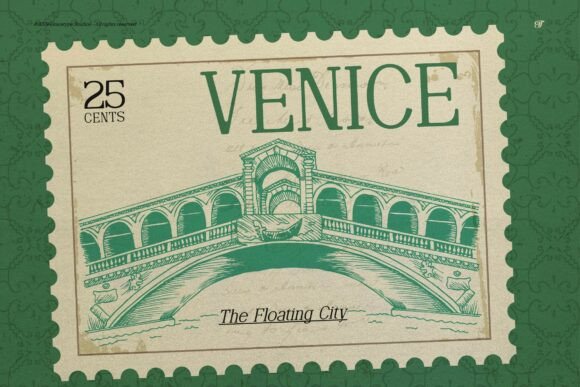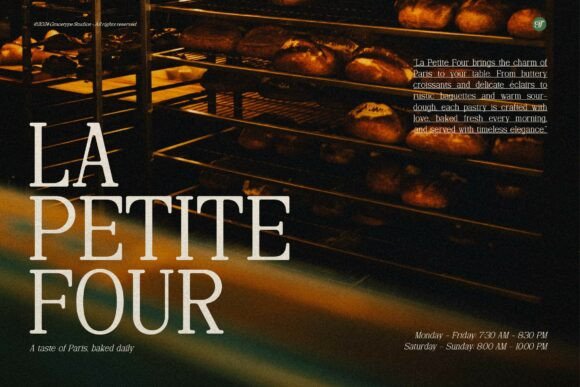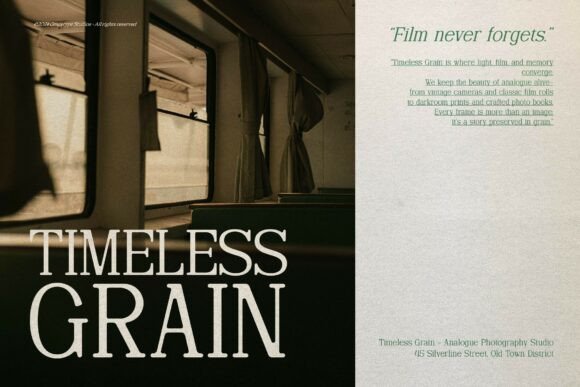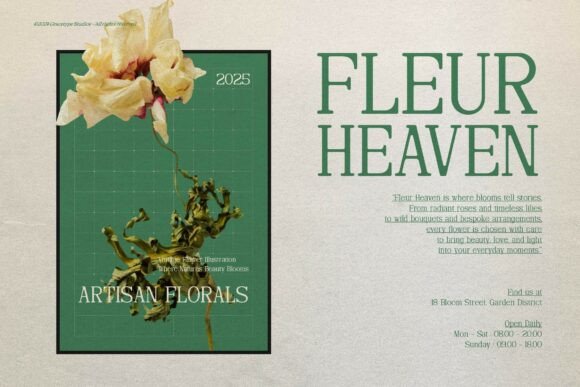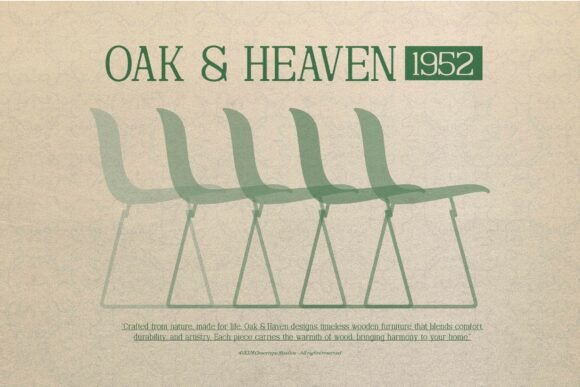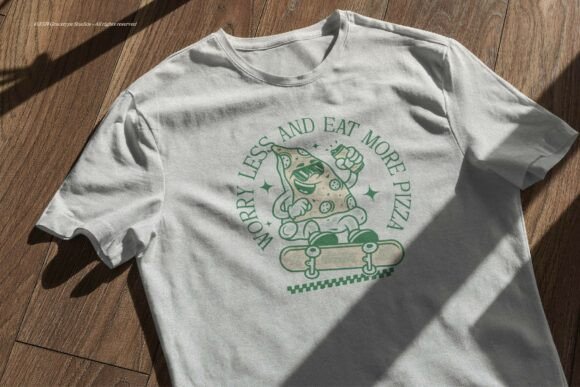
Introducing Defilao Vertes: The Ultimate Vintage Font for Your Creative Projects
Are you a designer or crafter looking for a font that adds a touch of vintage charm to your projects? Look no further than Defilao Vertes, a beautifully crafted vintage font that’s perfect for a wide range of creative endeavors. In this article, we’ll explore the unique characteristics of Defilao Vertes and how it can elevate your designs, from logos and branding projects to homeware designs, product packaging, and beyond.
The Unique Charm of Defilao Vertes
Defilao Vertes is a carefully crafted vintage font that exudes a sense of nostalgia and sophistication. Its unique letterforms and classic typography make it an excellent choice for designers and crafters who want to add a touch of elegance and refinement to their projects. Whether you’re working on a logo, a poster, or a product label, Defilao Vertes is sure to make your design stand out.
Versatility at Its Best: Use Defilao Vertes for a Wide Range of Projects
One of the best things about Defilao Vertes is its incredible versatility. This font is suitable for a wide range of projects, including:
- Logos and branding projects: Create a lasting impression with a custom logo that showcases your brand’s personality and style.
- Homeware designs: Add a touch of vintage charm to your home decor designs, from wall art to kitchenware.
- Product packaging: Make your products stand out on store shelves with eye-catching packaging that features Defilao Vertes.
- Mugs and ceramics: Create personalized gifts or unique home decor items with Defilao Vertes.
- Quotes and posters: Add a touch of elegance to your inspirational quotes and posters.
- Shopping bags and packaging: Elevate your brand’s packaging with a custom shopping bag that features Defilao Vertes.
- T-shirts and apparel: Create stylish and unique apparel with Defilao Vertes.
- Book covers and journals: Add a touch of sophistication to your book covers and journals.
- Name cards and invitation cards: Create beautiful and elegant name cards and invitation cards for special events.
- Greeting cards and labels: Add a personal touch to your greeting cards and labels with Defilao Vertes.
- Photography and watermark: Use Defilao Vertes as a watermark for your photos or add it to your photography designs.
Why Choose Defilao Vertes?
So, why should you choose Defilao Vertes for your next project? Here are just a few reasons:
- Unique and distinctive: Defilao Vertes is a one-of-a-kind font that will set your designs apart from the rest.
- Vintage charm: Add a touch of nostalgia and sophistication to your designs with Defilao Vertes.
- High-quality: Defilao Vertes is a high-quality font that’s perfect for both personal and commercial use.
Tips and Inspiration for Using Defilao Vertes
To get the most out of Defilao Vertes, here are a few tips and inspiration ideas:
- Experiment with different colors: Defilao Vertes looks great in a variety of colors, from bold and bright to soft and pastel.
- Mix and match: Combine Defilao Vertes with other fonts or graphics to create a unique and eye-catching design.
- Play with texture: Add texture to your designs with Defilao Vertes, from subtle background textures to bold and eye-catching graphics.
Whether you’re a seasoned designer or a crafter just starting out, Defilao Vertes is the perfect font for adding a touch of vintage charm to your projects. With its unique letterforms, classic typography, and incredible versatility, Defilao Vertes is sure to become a staple in your design toolkit.